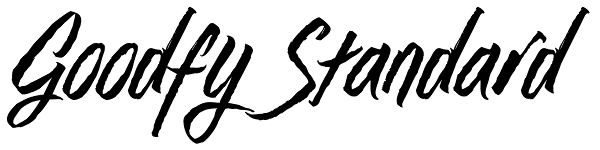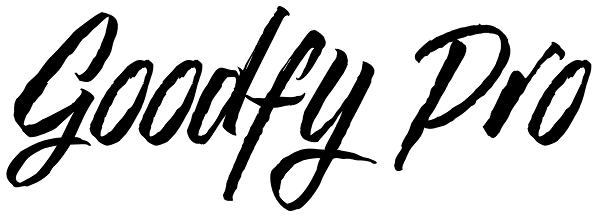
Goodfy
Goodfy is a quick brush typeface based on original lettering, using a brush pen. Goodfy is great for giving a fast and rush, handlettered feeling to your work. With over 300 glyphs, including swash variants, and other various OpenType extended...